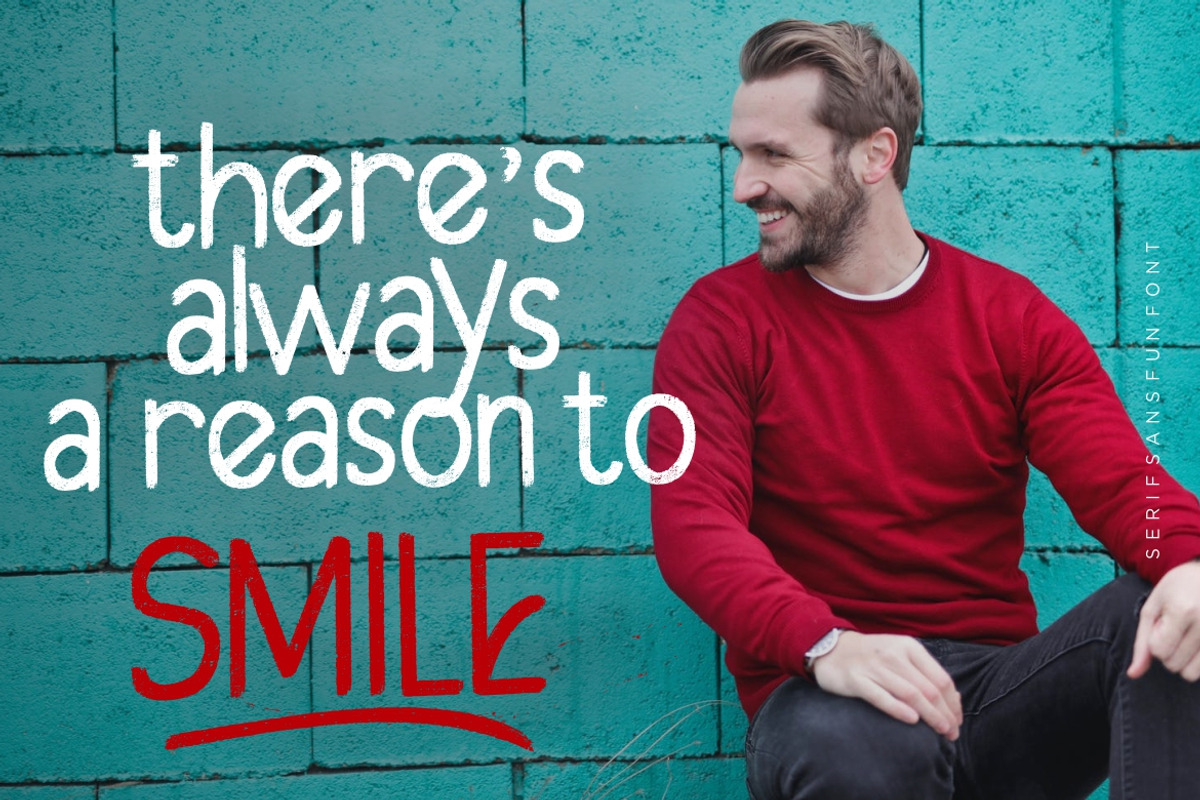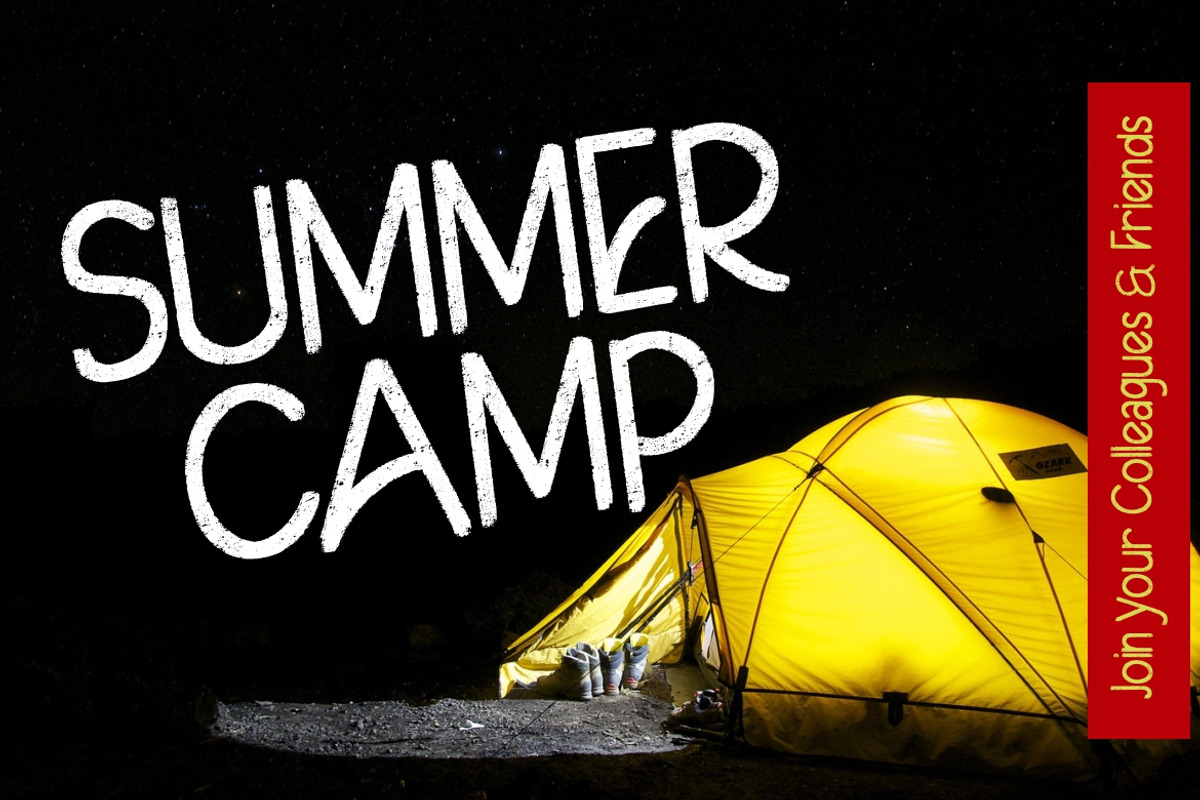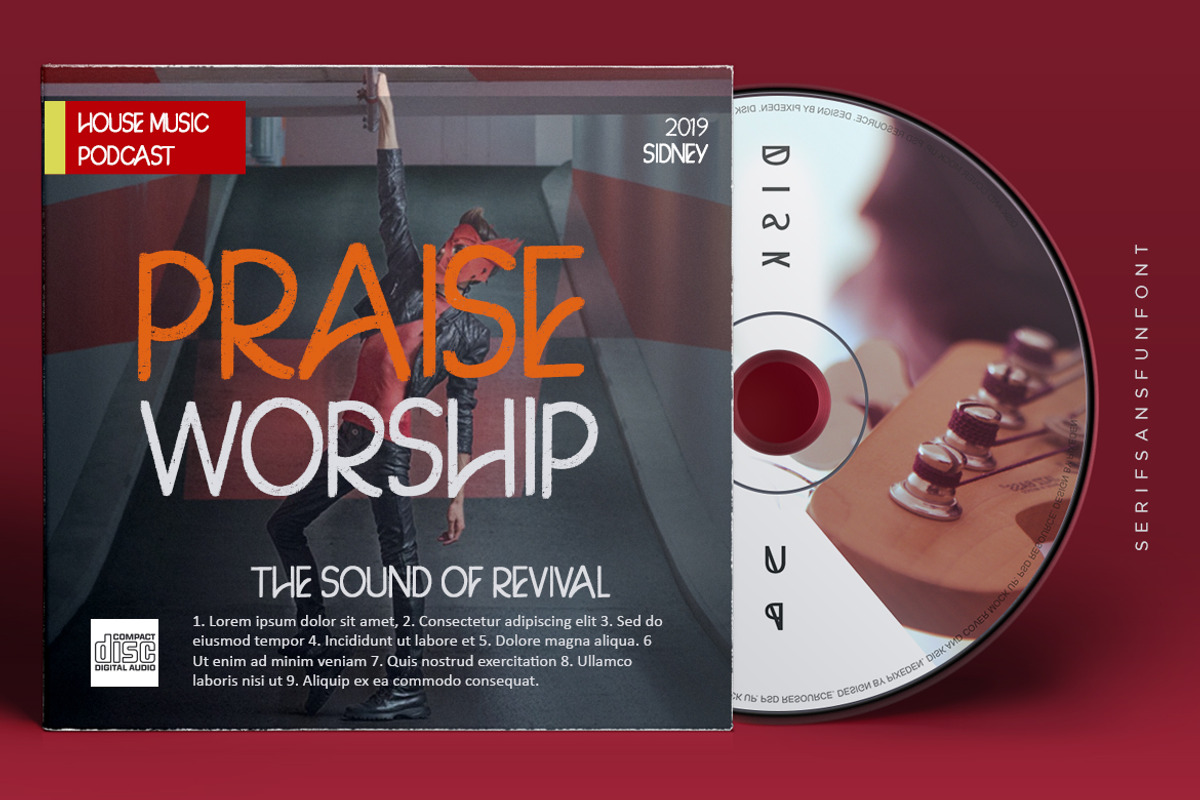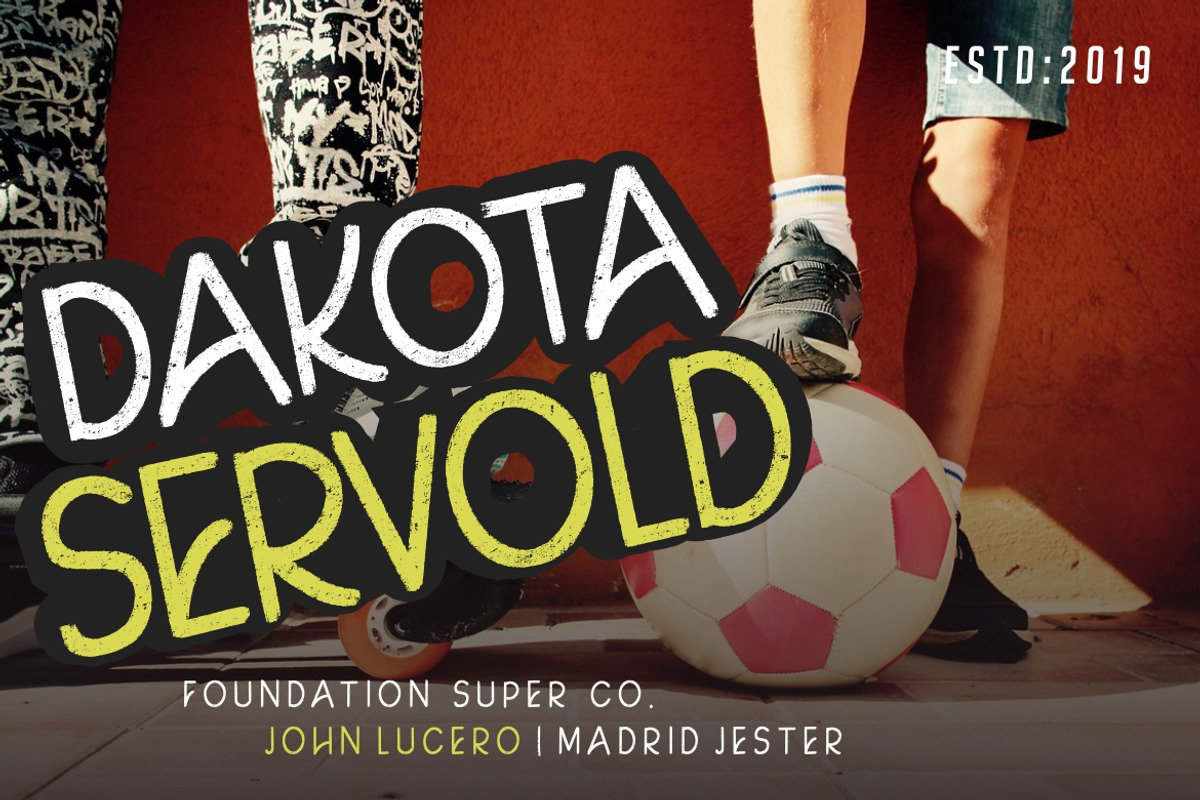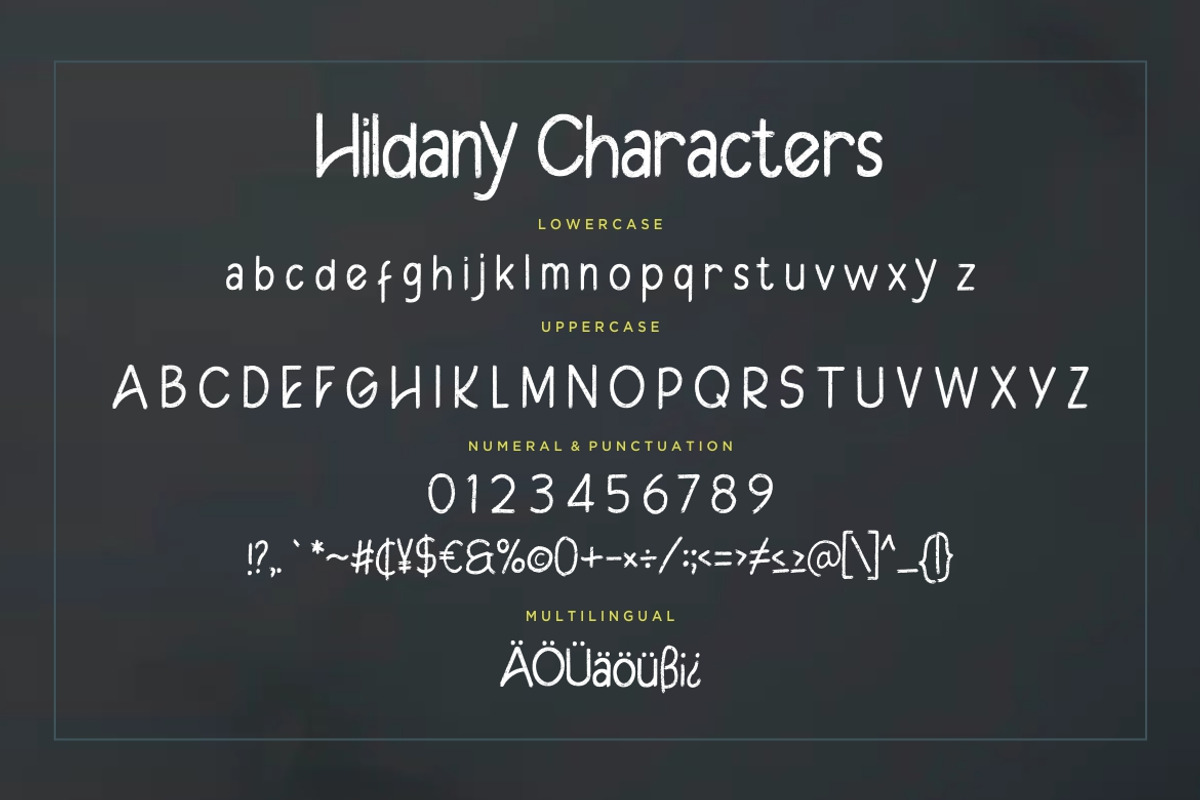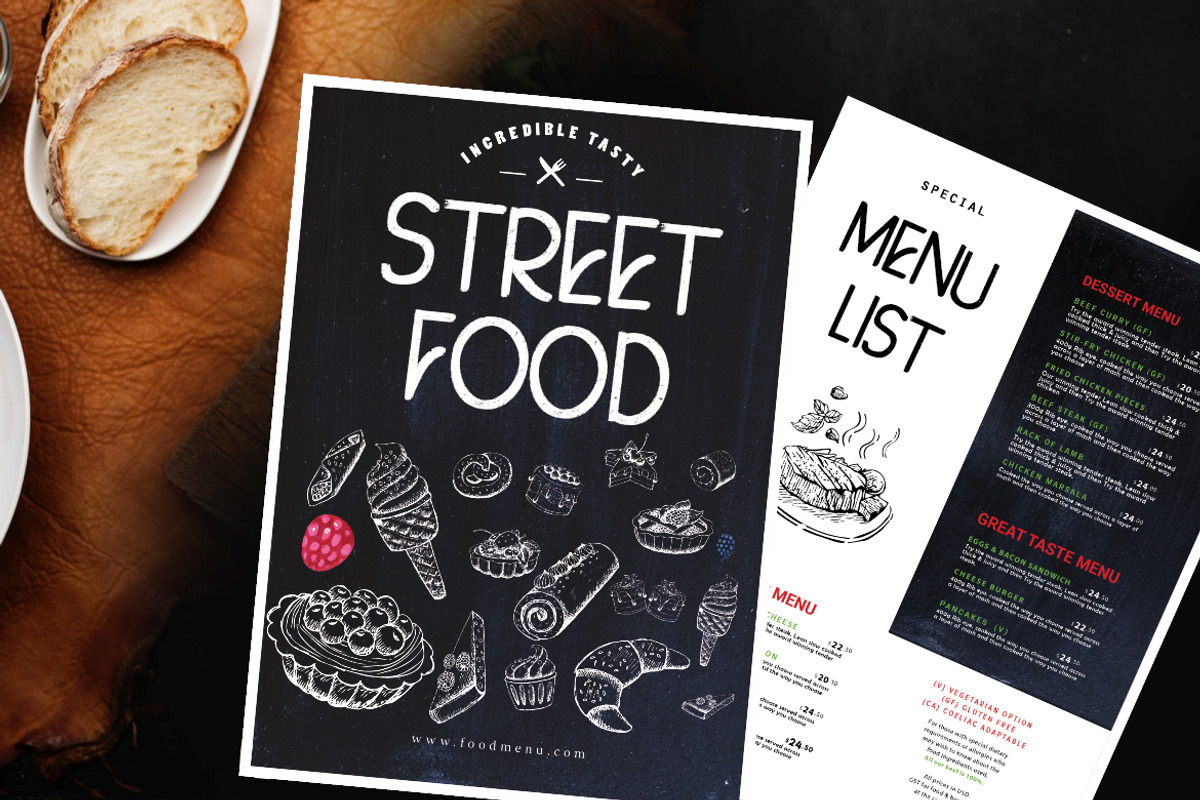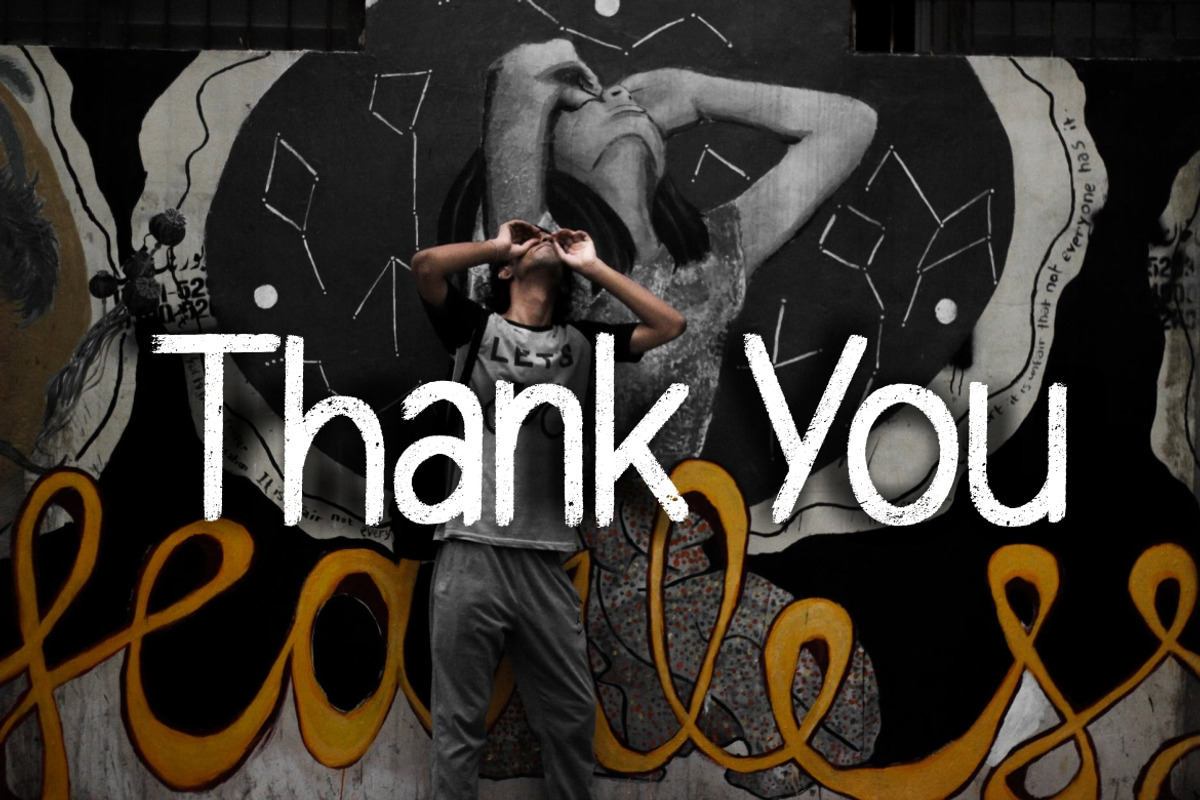
Hildany Sans Advertisement Font
Hildany is sans serif fun font with brush hand-drawn. It looks funny, happy and cheer up.
Hildany is perfect for branding projects, logo, wedding designs, social media posts, advertisements, product packaging, product designs, label, photography, watermark, invitation, stationery and any projects that need handwriting taste.
Hildany Sans Advertisement Font by Creatype Studio fits naturally into Branding, posters, packaging, typography.